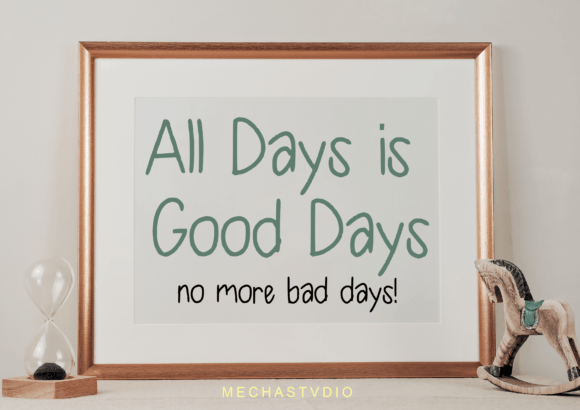
Introduction to Nyarru Font
Nyarru is a simple custom handwritten sans serif style font with a unique feel and a playful impact.
It will add a natural spark to any design project that you wish to create .
Key Features of Nyarru Font
Why Choose Nyarru Font?
Nyarru Font offers exceptional quality and versatility, making it a valuable addition to your design toolkit. Whether you’re creating for personal projects or commercial use, Nyarru Font delivers professional results.